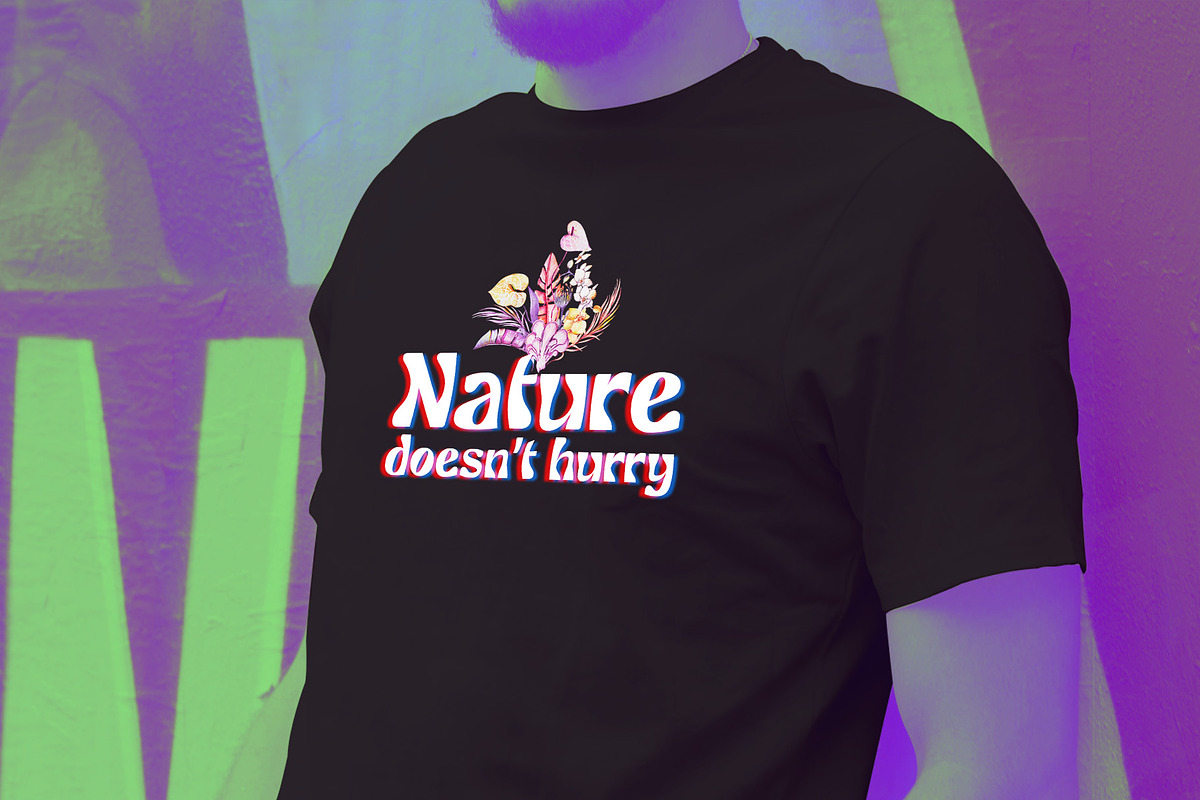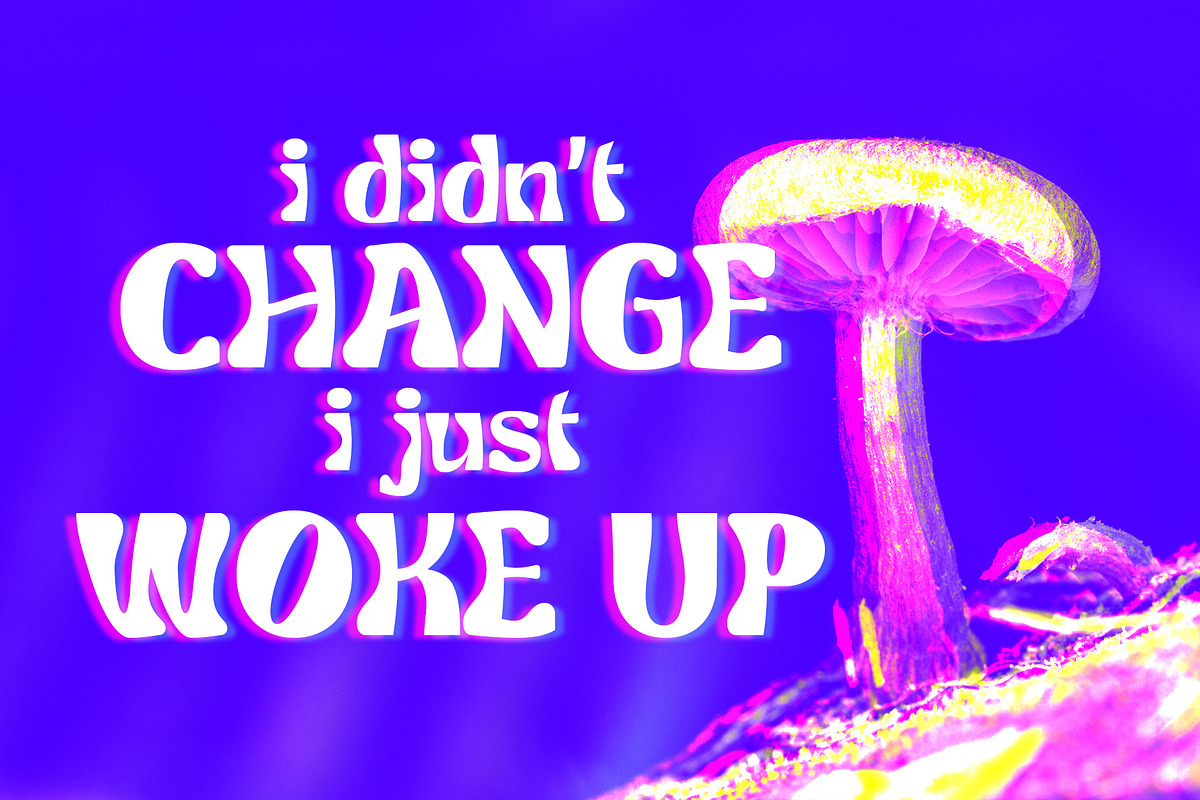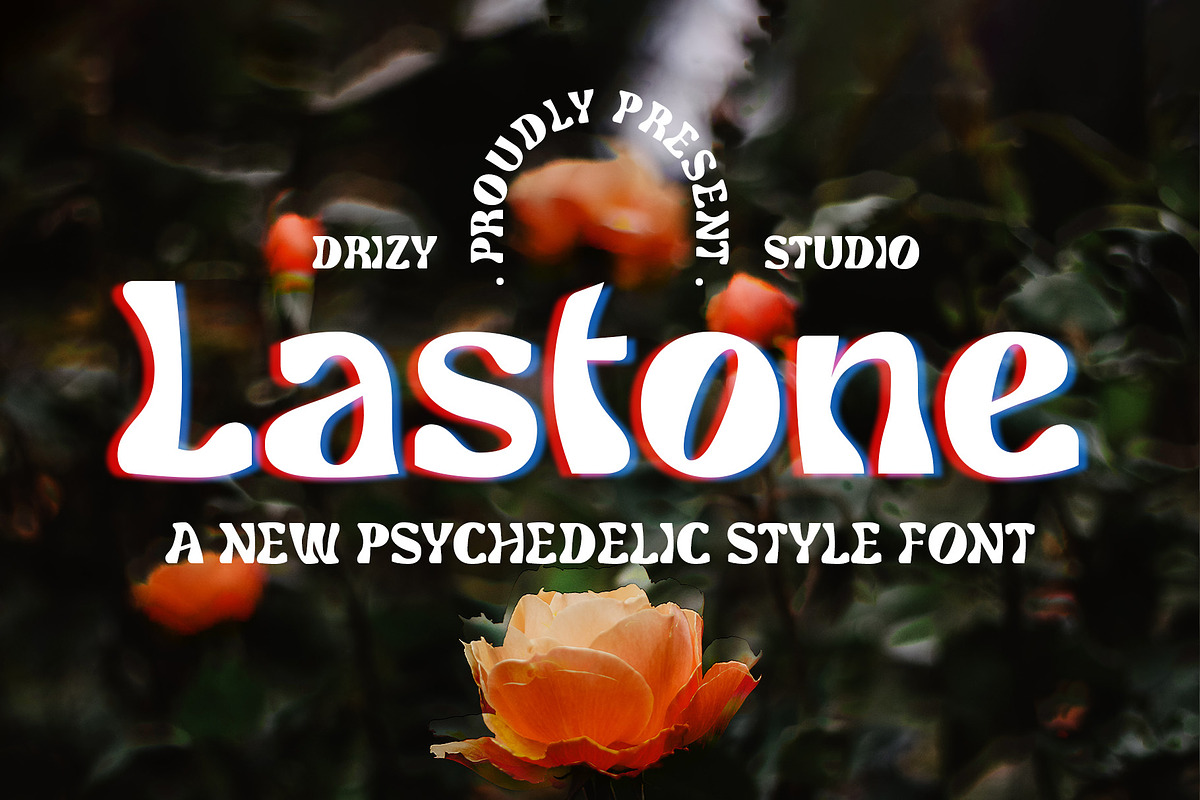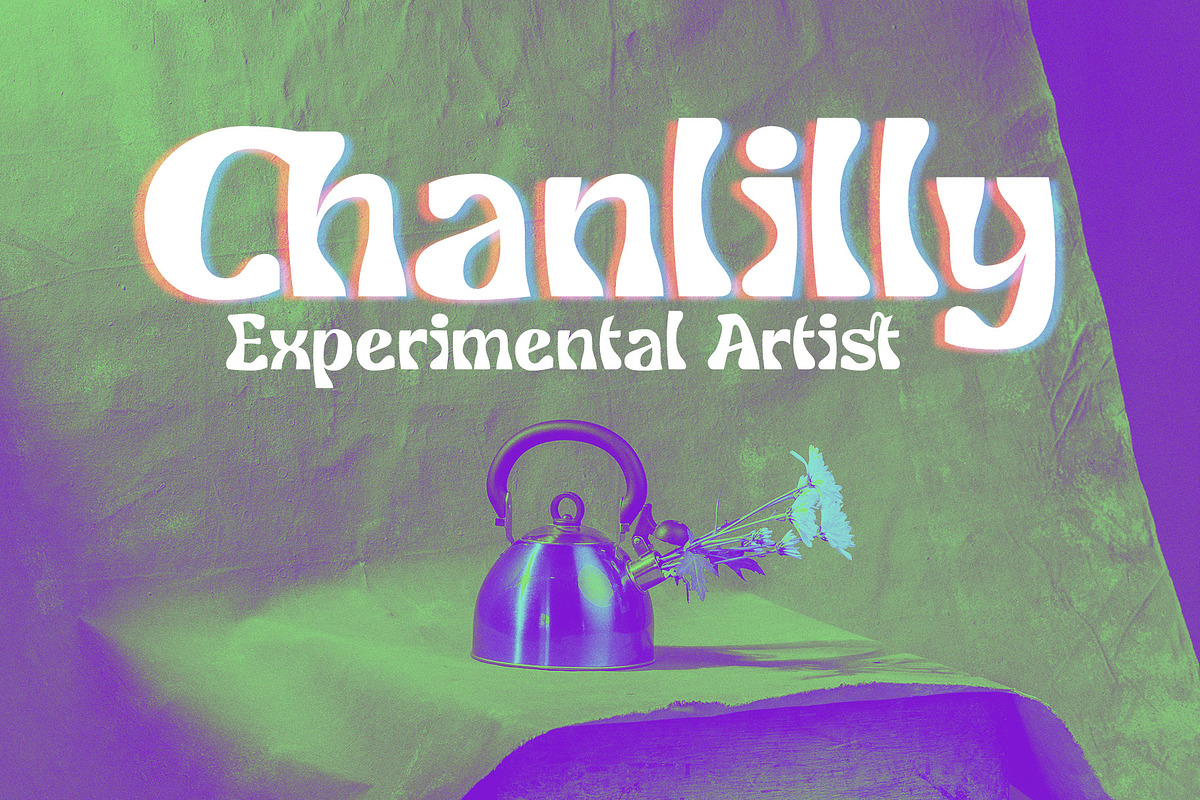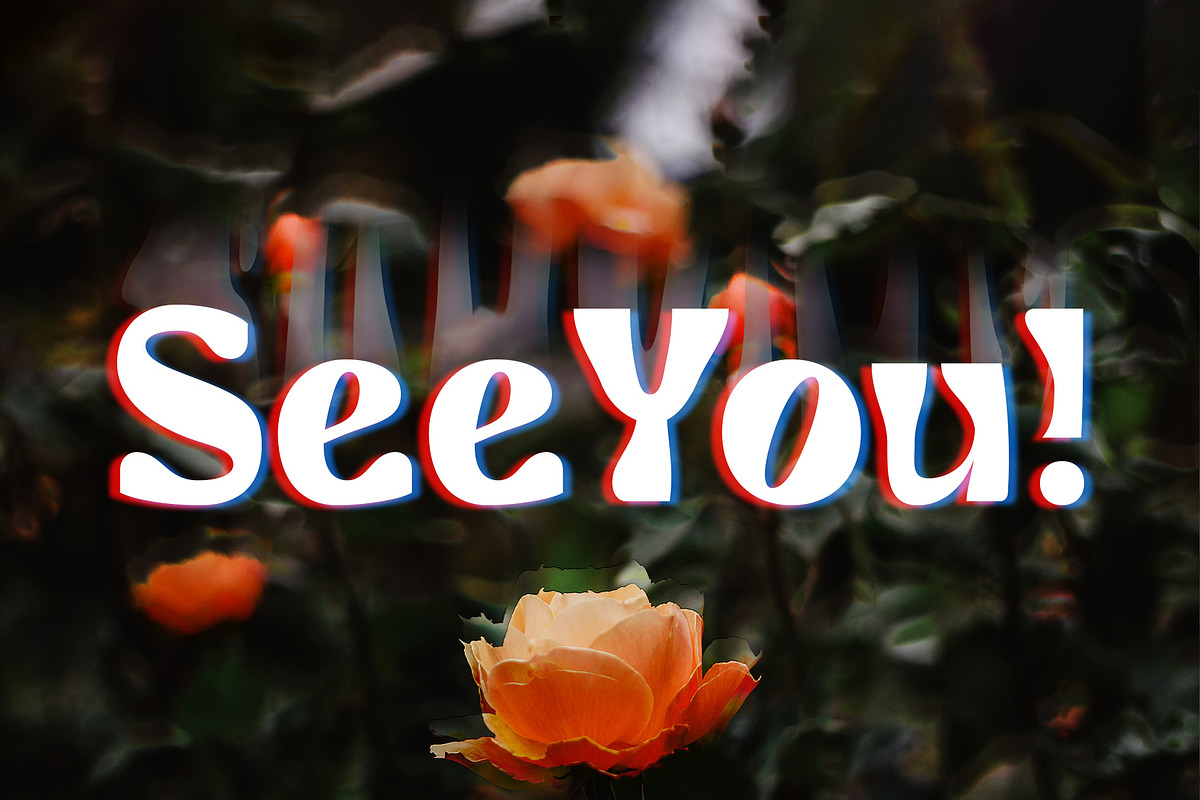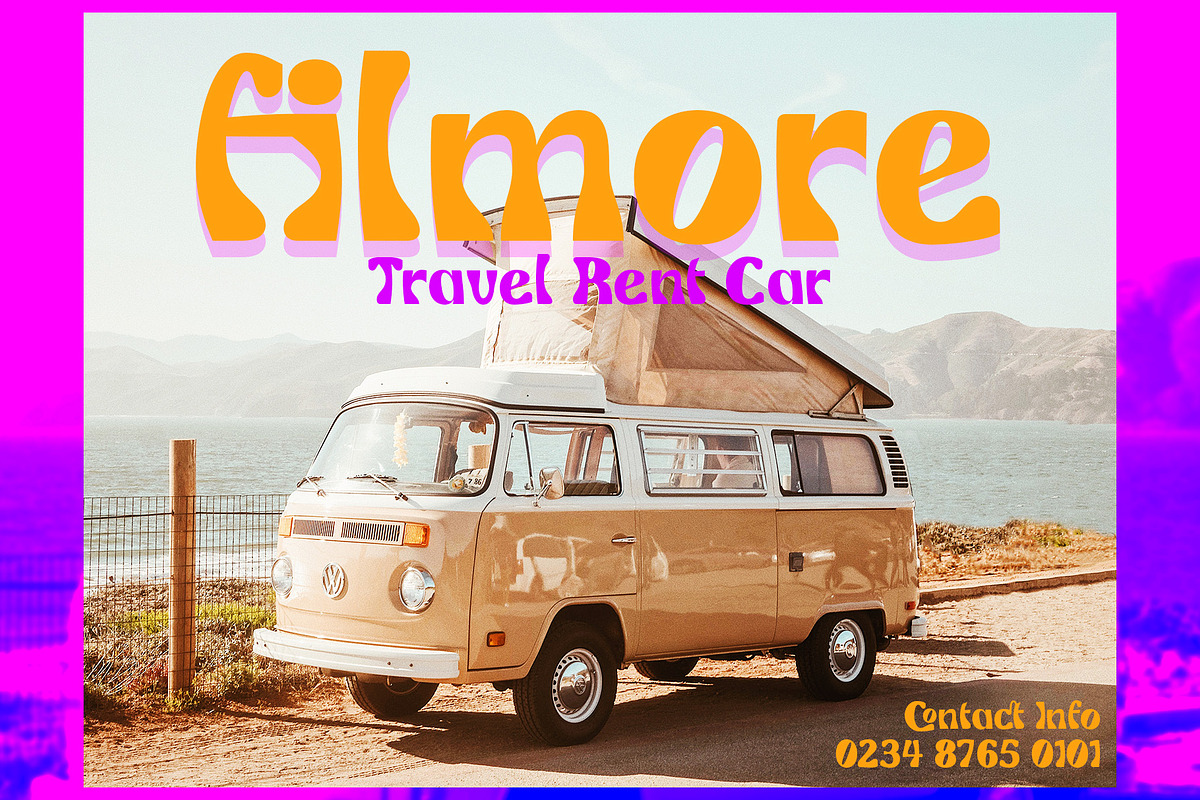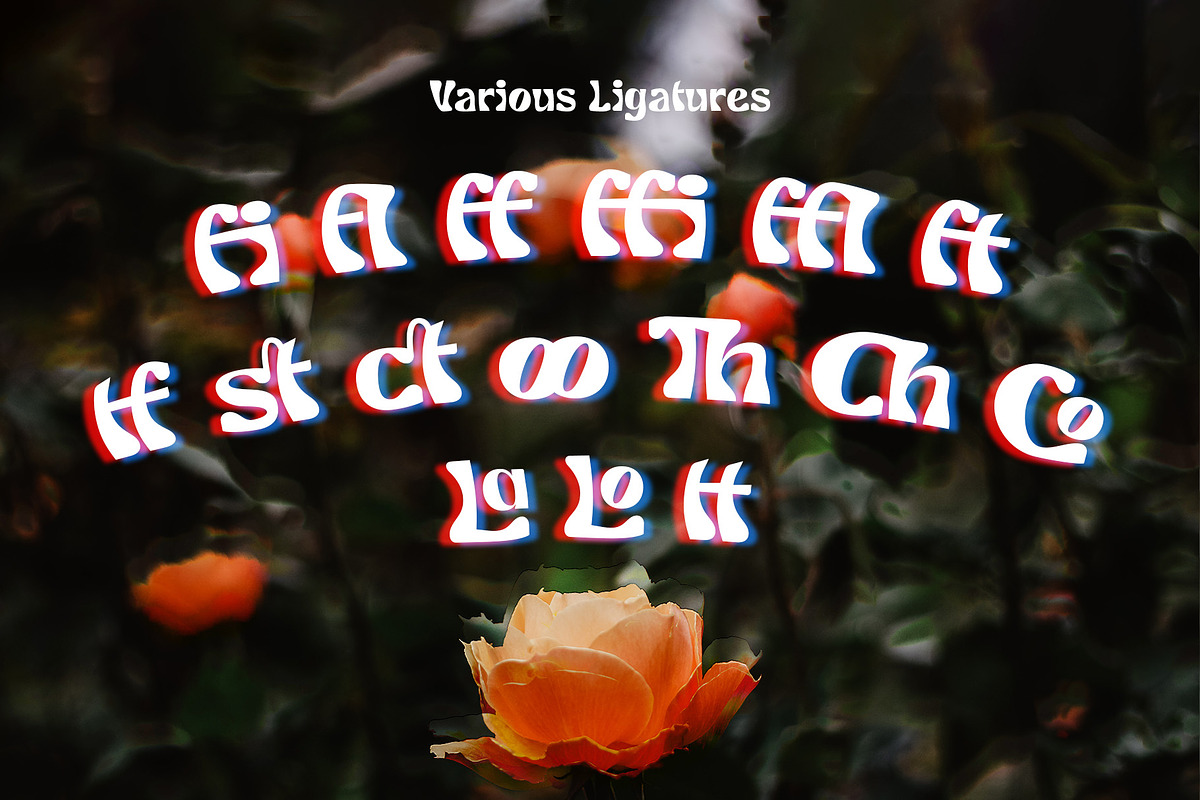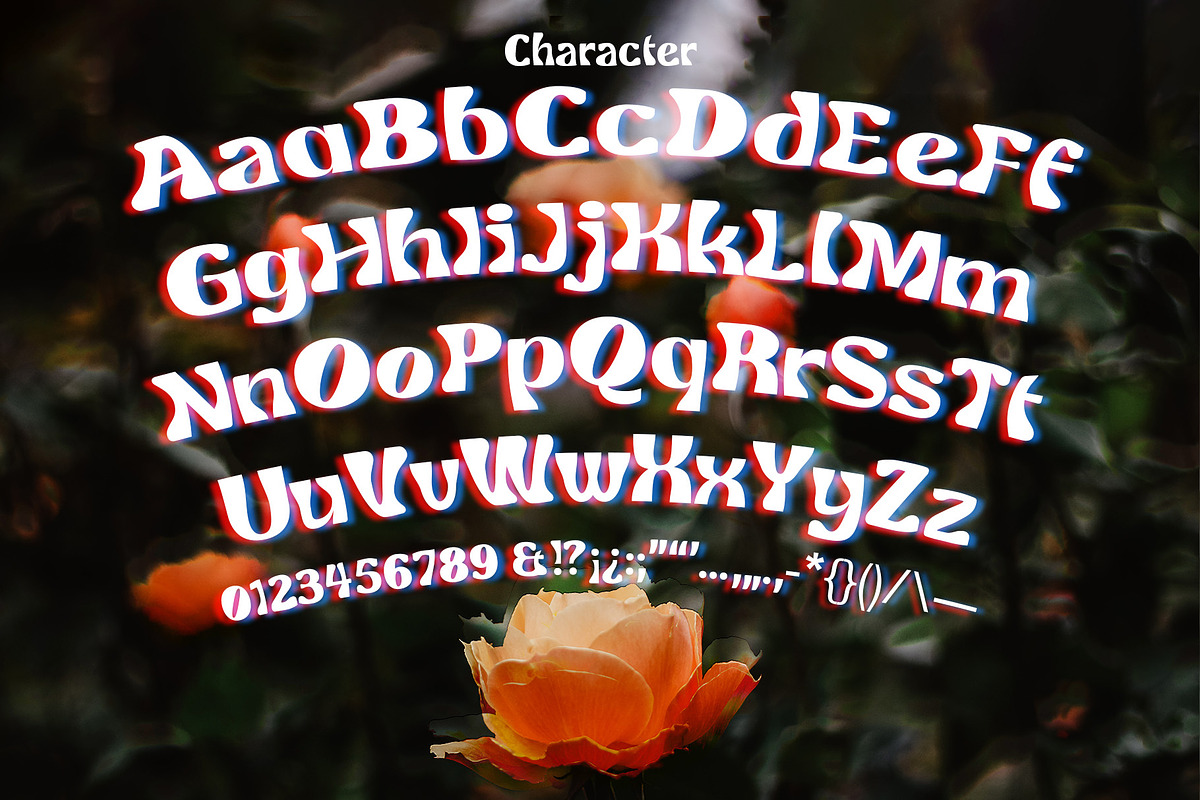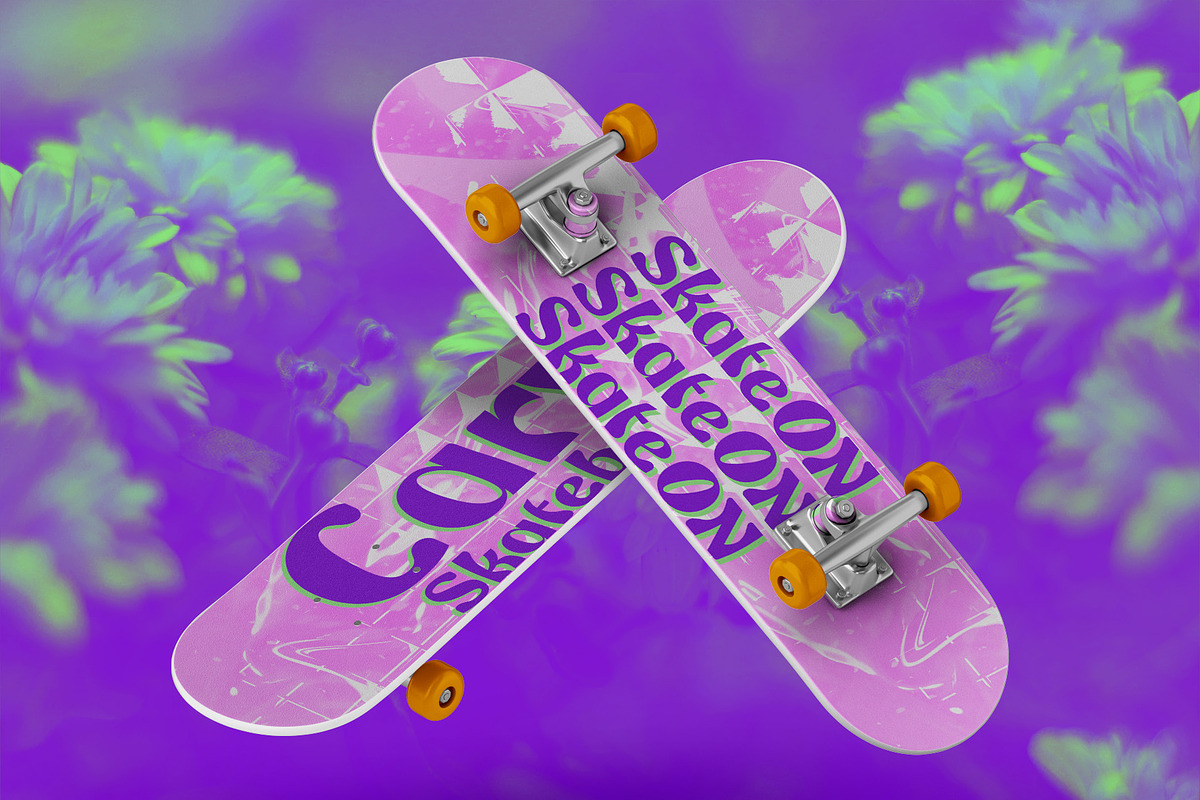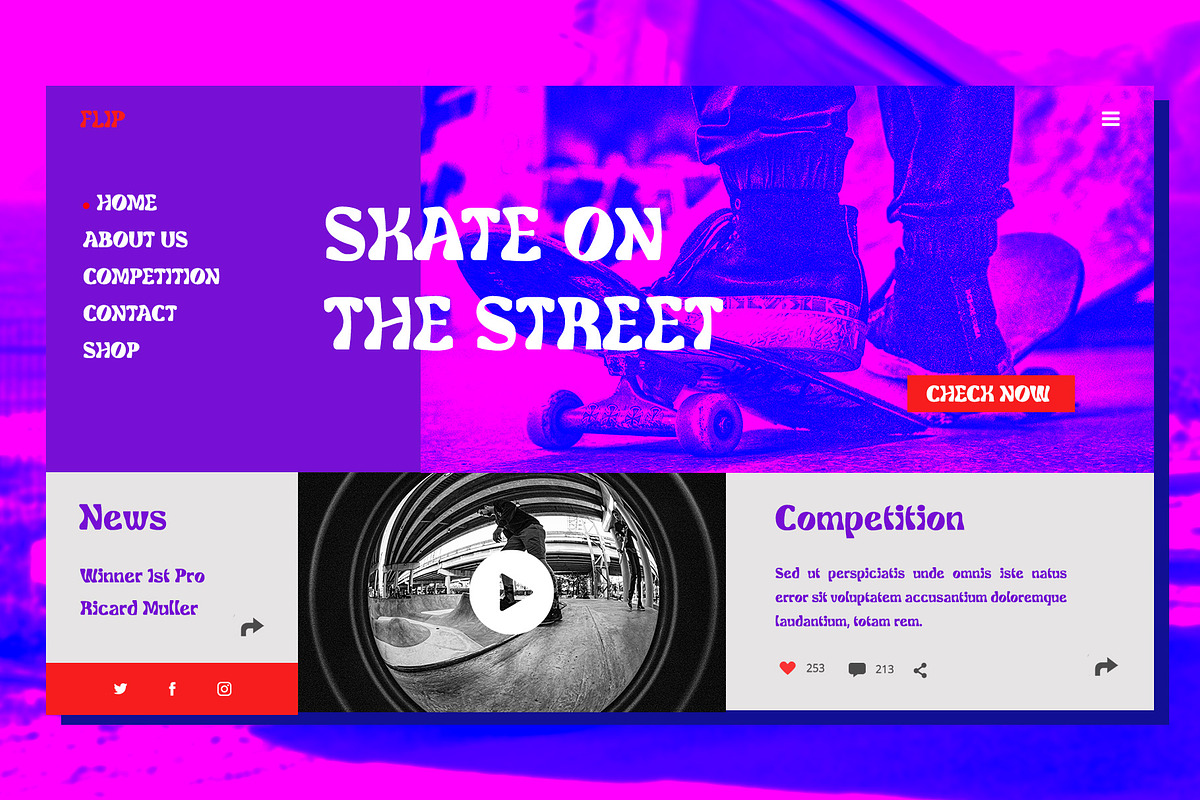
Lastone - Psychedelic Font
Introducing Lastone! a modern futuristic san serif display font from Drizy! It's suitable for futuristic and modern theme of your project.
Lastone Features:
Numeral Ligatures & Punctuations